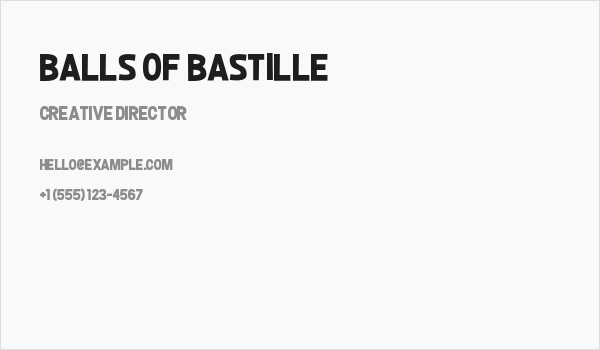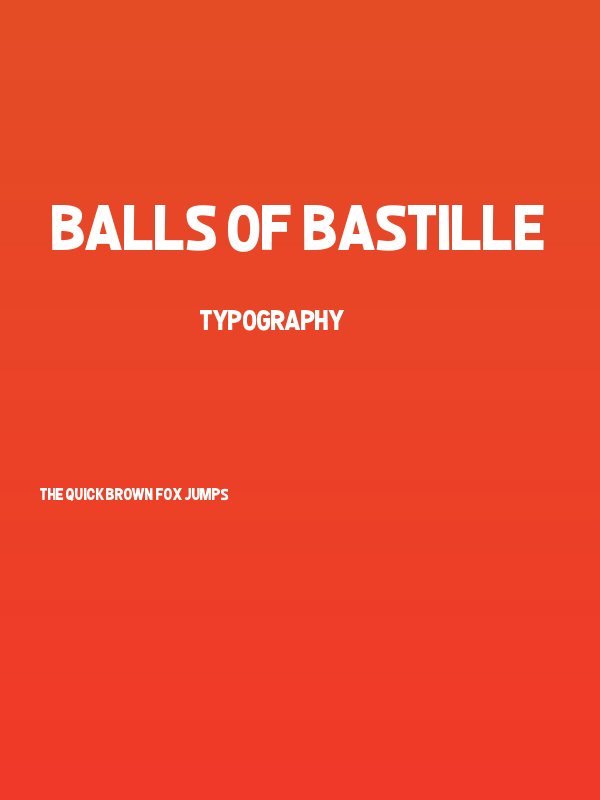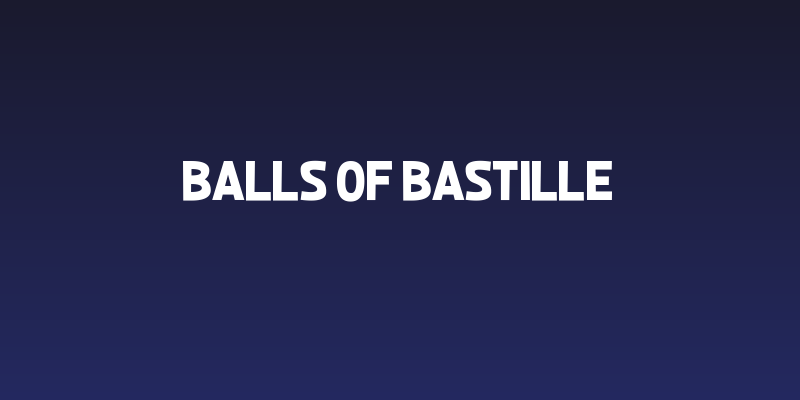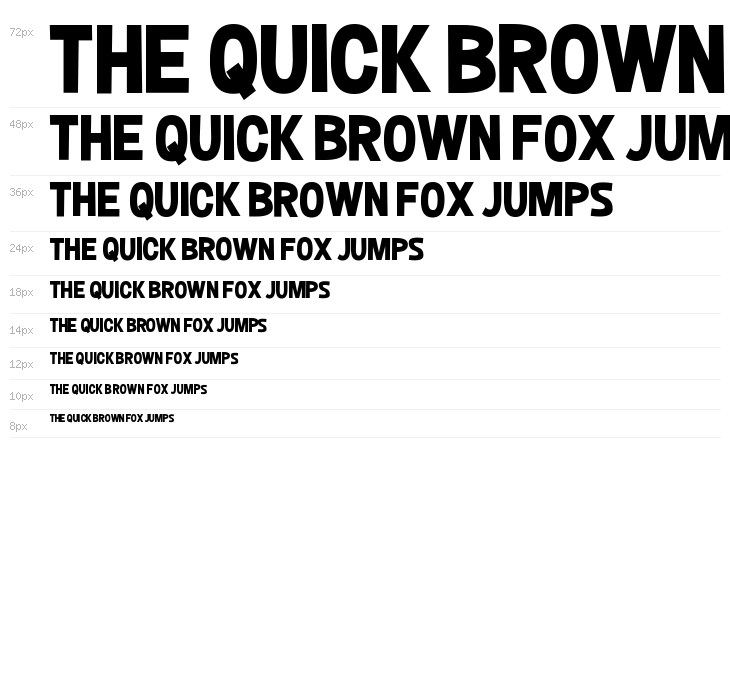
Balls of Bastille Font
Balls of Bastille Description
This font features a bold and impactful design, characterized by thick, uniform strokes that convey strength and modernity. The uppercase and lowercase letters maintain a consistent width, creating a cohesive and balanced appearance. The numerals are equally bold, ensuring readability and emphasis. Special characters are designed with the same robust style, making them stand out effectively. The overall aesthetic is clean and straightforward, suitable for making strong visual statements.
Proposed ProjectsIdeal for headlines, posters, branding, and advertising where a strong, modern presence is required.